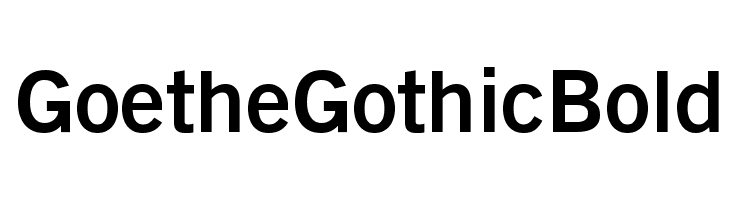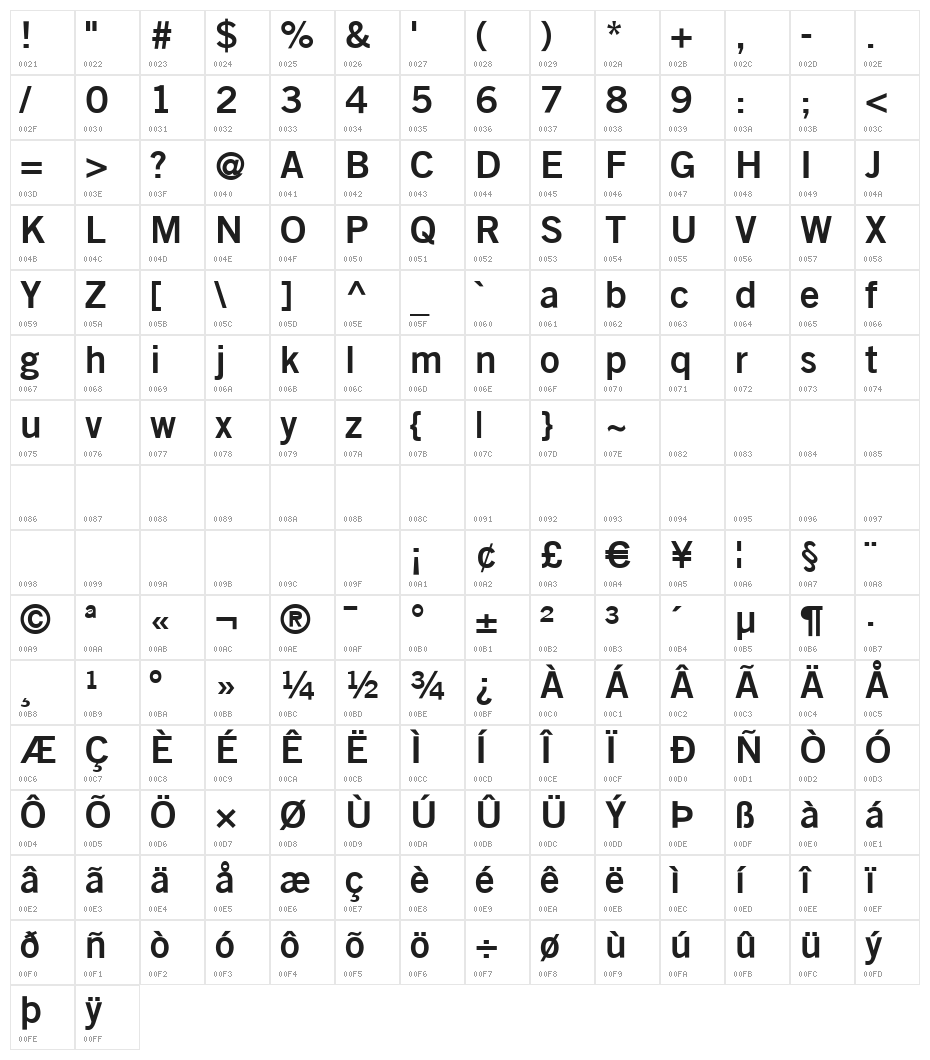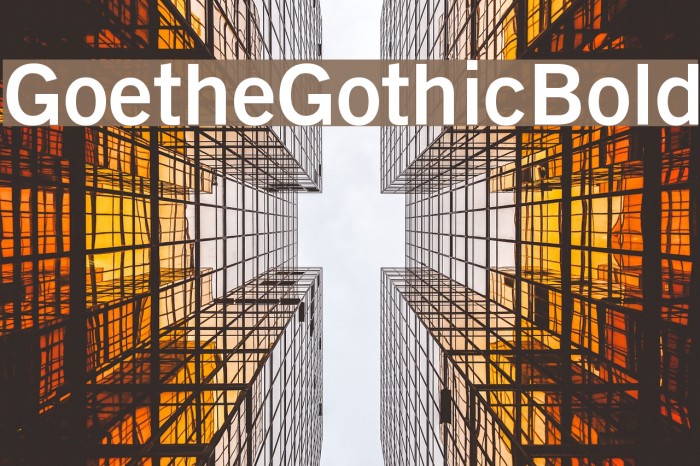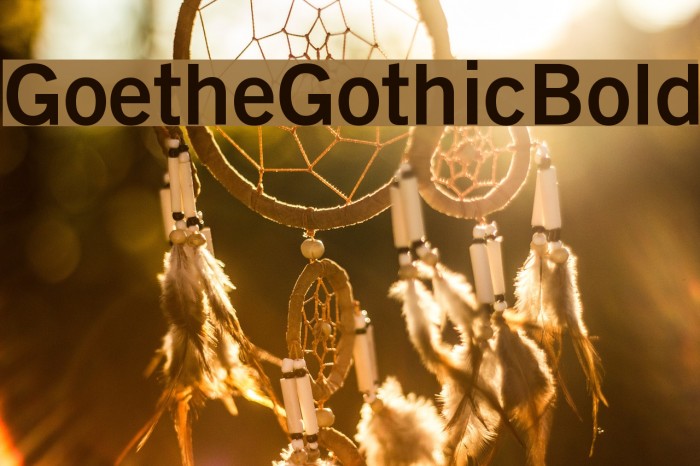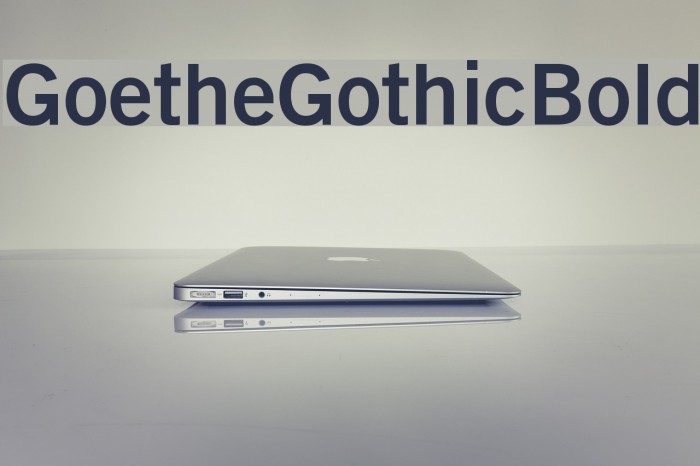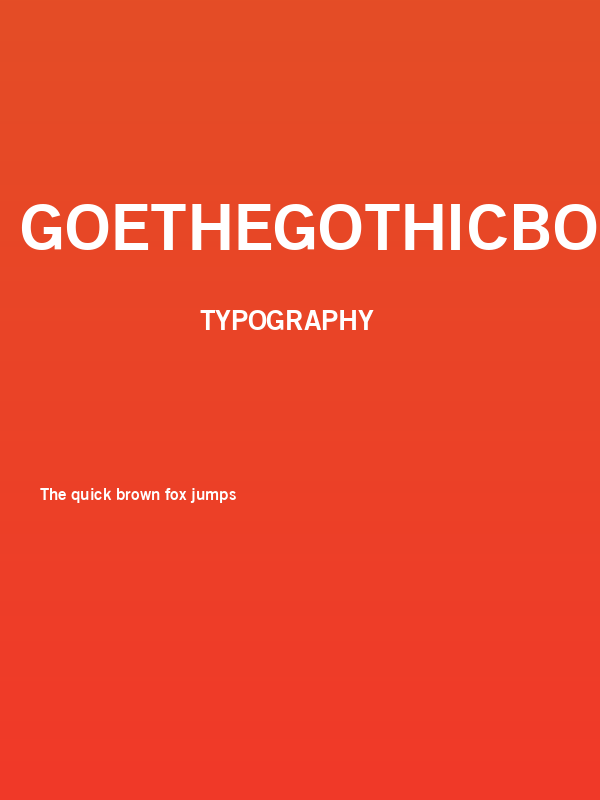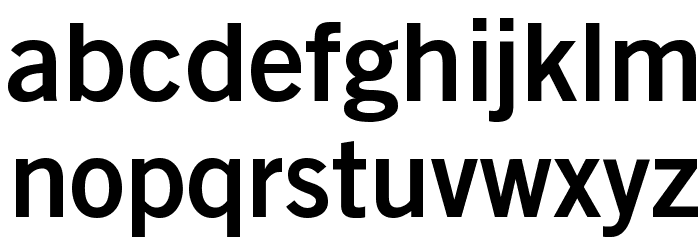
GoetheGothicBold Font
GoetheGothicBold Description
This typeface features a bold and modern aesthetic with clean, straight lines and a uniform stroke width. The uppercase letters are strong and commanding, while the lowercase letters maintain a consistent and harmonious appearance. The numerals are clear and easily distinguishable, making them suitable for various applications. Special characters are well-defined, adding versatility to the font. The overall design is sleek and contemporary, making it ideal for projects that require a bold statement.
| Use Case | Headlines, Logos, Advertising |
| Proposed Projects | Ideal for branding, advertising, headlines, and digital media where a strong, modern presence is desired. |